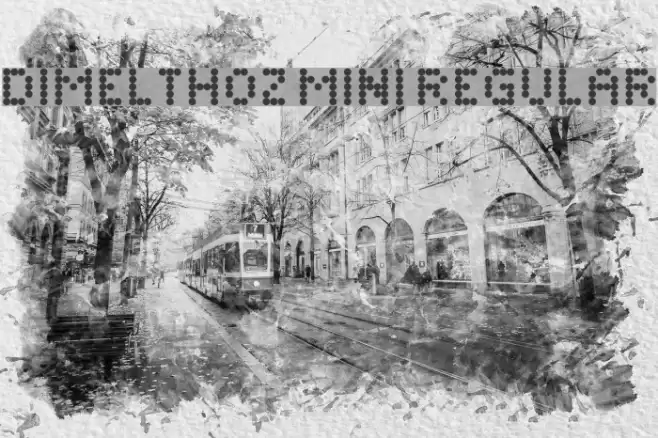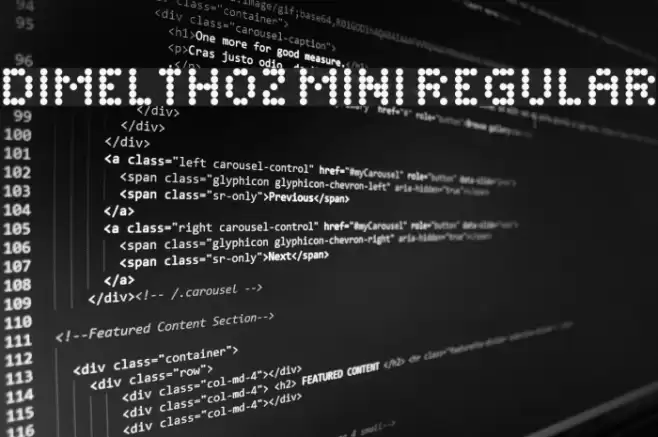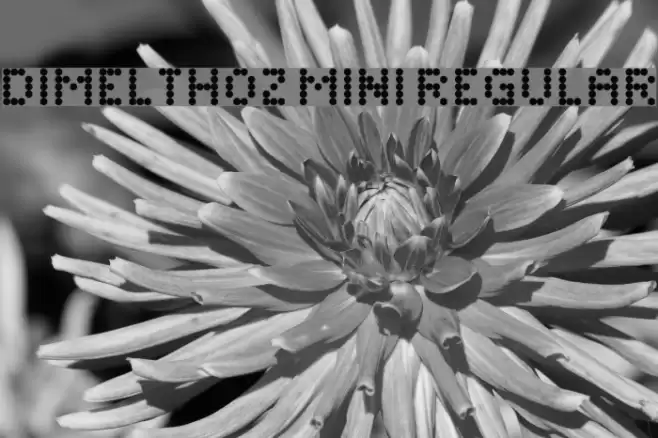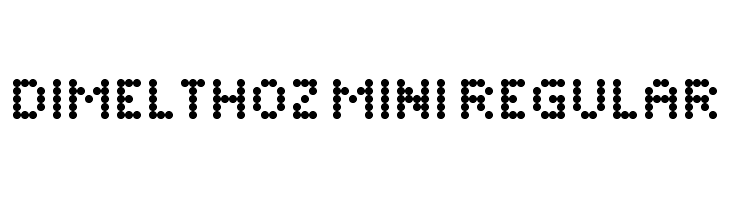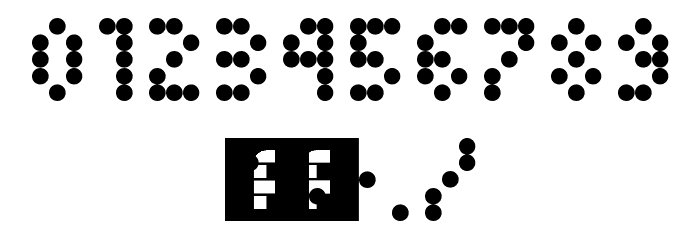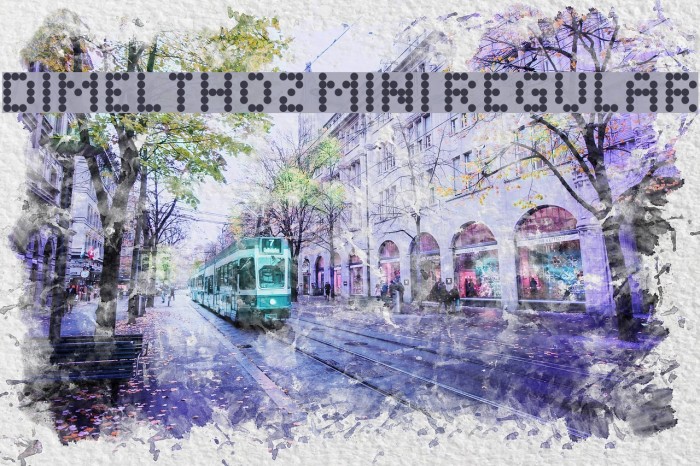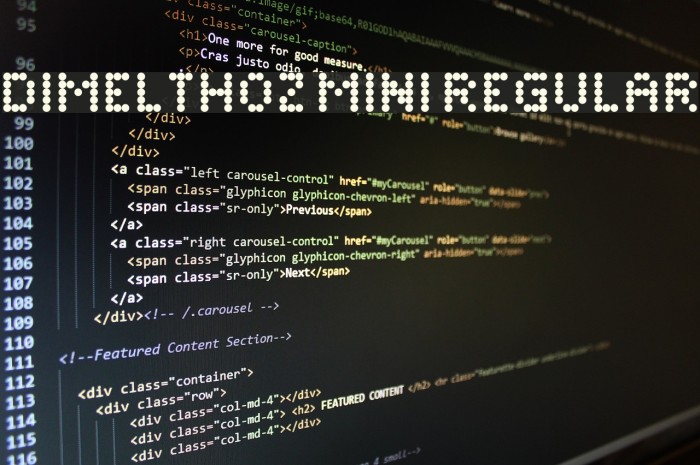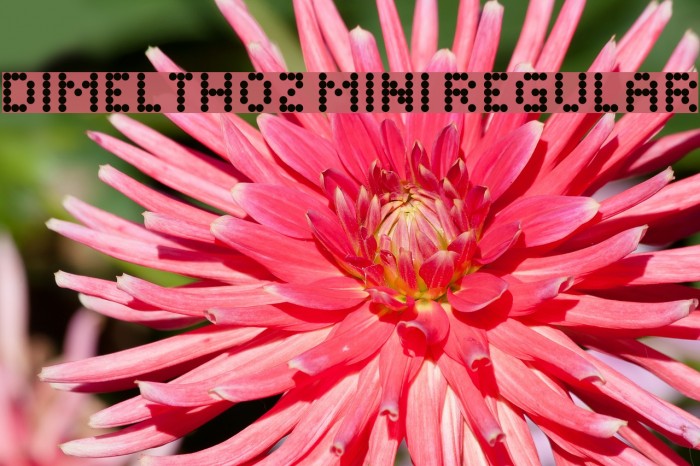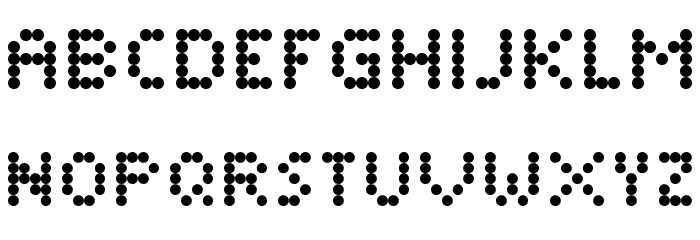
Dimelthoz Mini Regular Font
Dimelthoz Mini Regular Description
This font features a unique dot matrix style, where each character is composed of a series of evenly spaced dots. The design is reminiscent of digital displays or LED screens, giving it a modern and technological feel. The uniformity of the dots creates a consistent texture across all characters, while maintaining legibility. This style is particularly effective for creating a futuristic or retro digital aesthetic. The font includes both uppercase and lowercase letters, numbers, and a selection of special characters, all adhering to the same dot-based structure.
A dot matrix style font with a modern, digital aesthetic from Futuristic fonts.
- Proposed Projects: Ideal for digital displays, tech-themed designs, retro-futuristic projects, and creative branding.